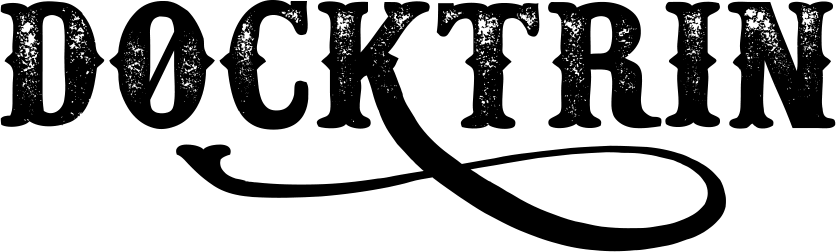
Docktrin Font
Western fonts never cease to amaze you with a raw and retro design and this one conveys the cowboy vibe perfectly. Docktrin has faded and bold characters and it can be used for Western banners and posters, theater or play flyers, movie posters, and tattoo and jewelry prints. All the alphabetical characters are capitalized.